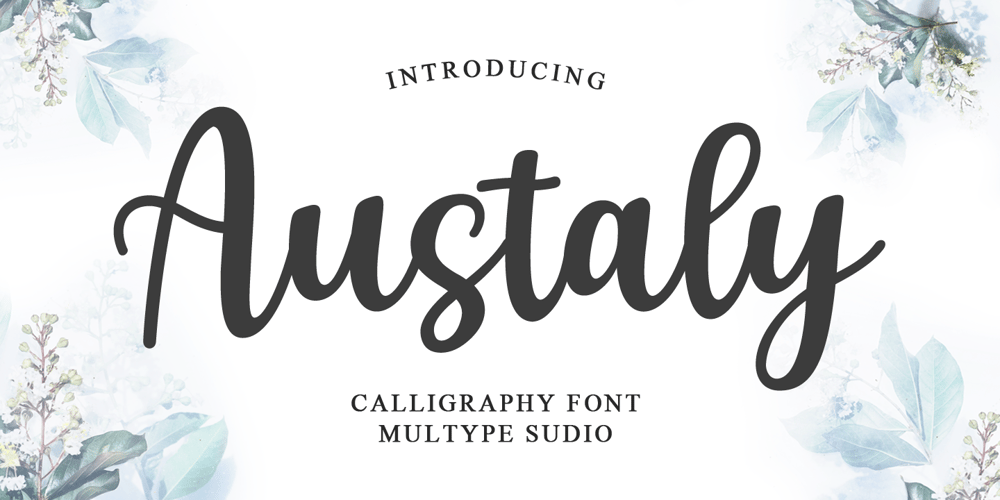
Austaly Font Family was designed by Mulia Yanto and published by Multype Studio. Austaly contains 1 styles and family package options. Austaly is a beautiful modern calligraphy font, featuring fun characters with their font characteristics. Austaly is perfect for branding projects, logo, social media posts, wedding designs, advertisements, product packaging, watermark, invitation, stationery and any projects that need handwriting taste.What’s Included : Standard glyphs & Ligature Works on PC / Mac Simple installations Accessible in the Adobe Illustrator, Adobe Photoshop, Adobe InDesign, even work on Microsoft Word PUA Encoded Characters, Fully accessible without additional design software. Multi-lingual support Thank you for your purchase!Hope you enjoy with our font!